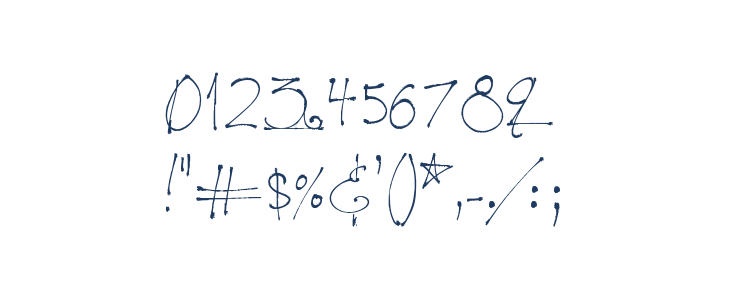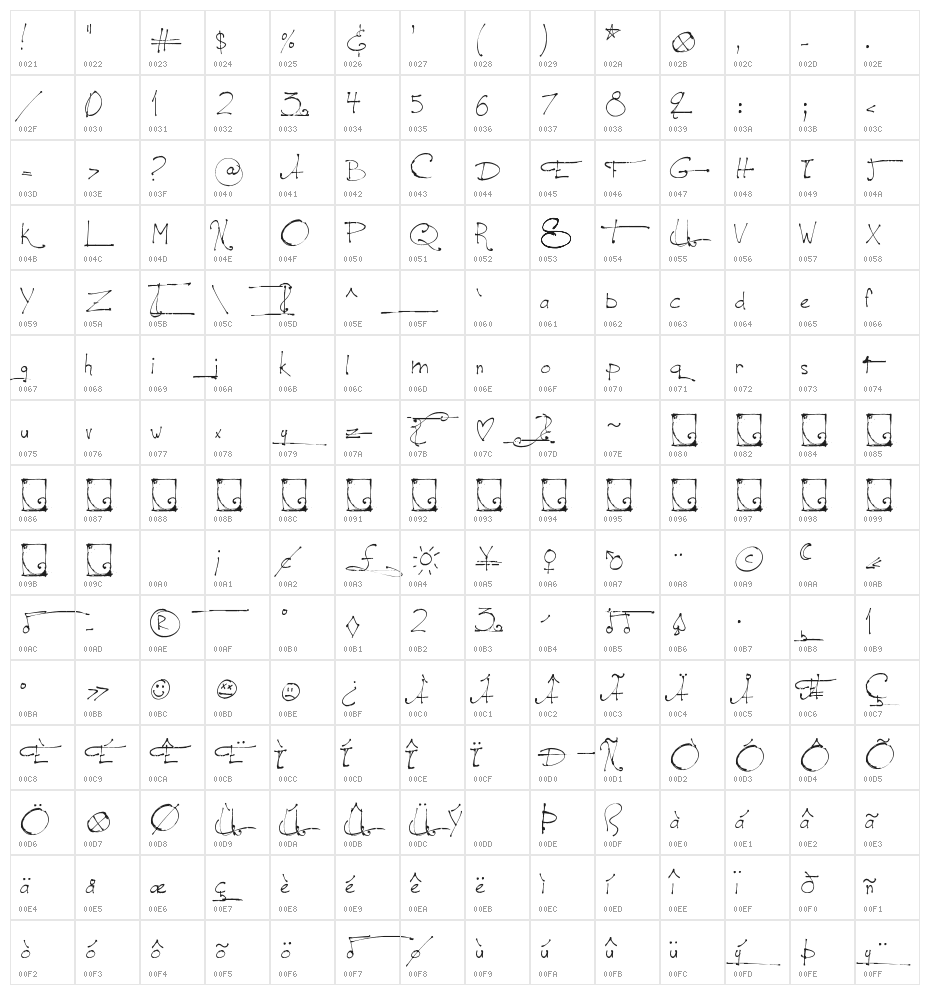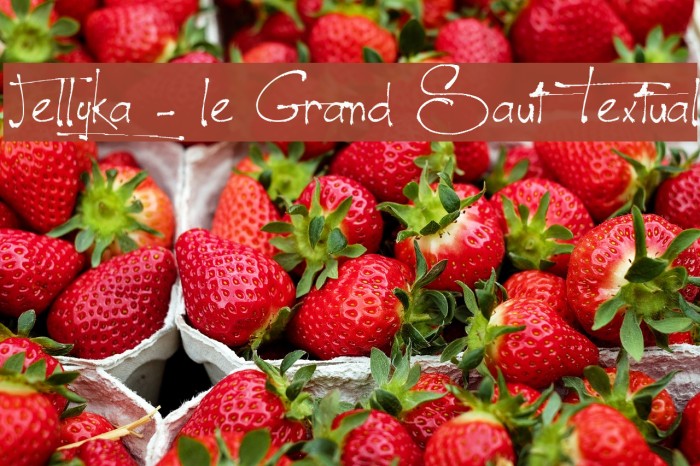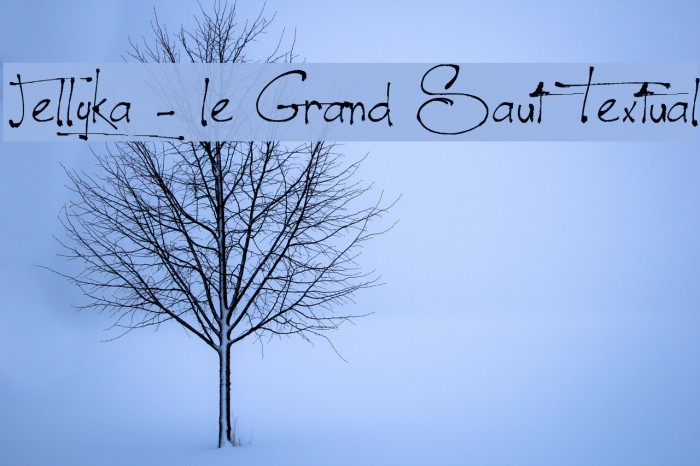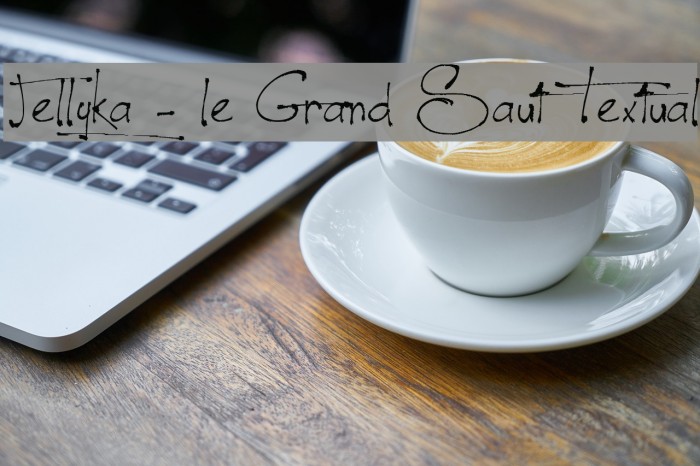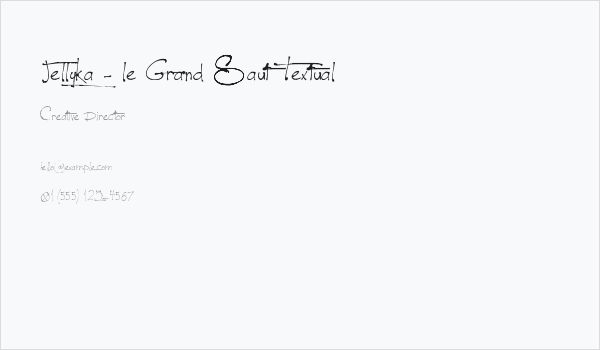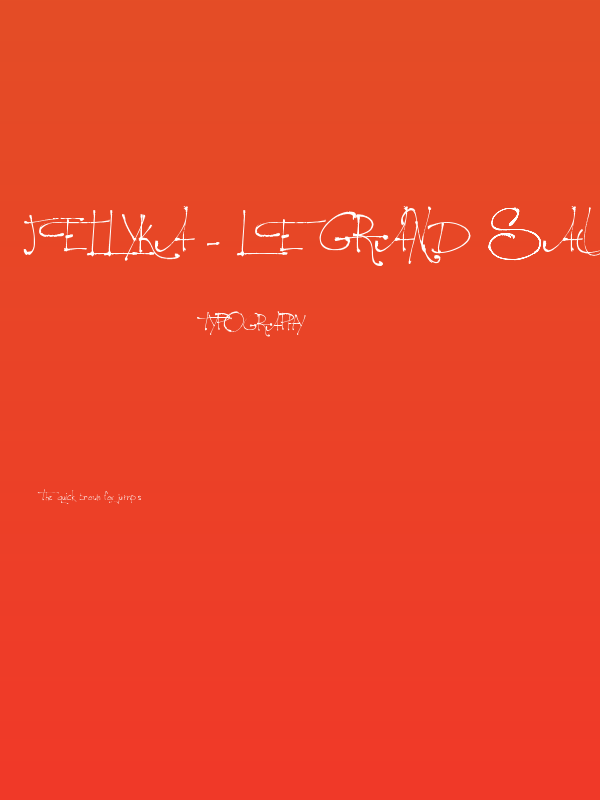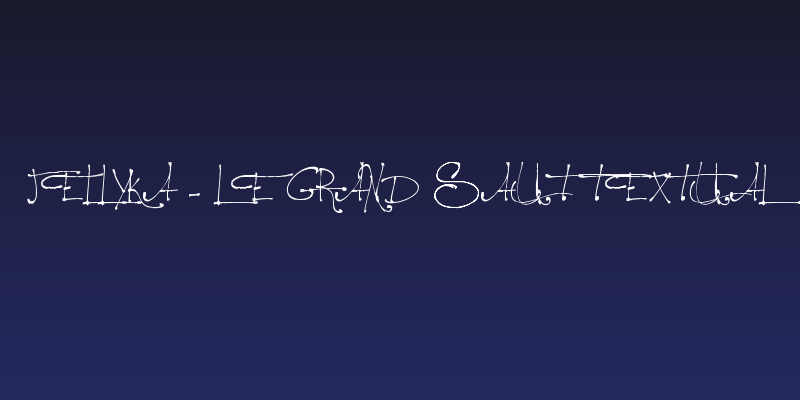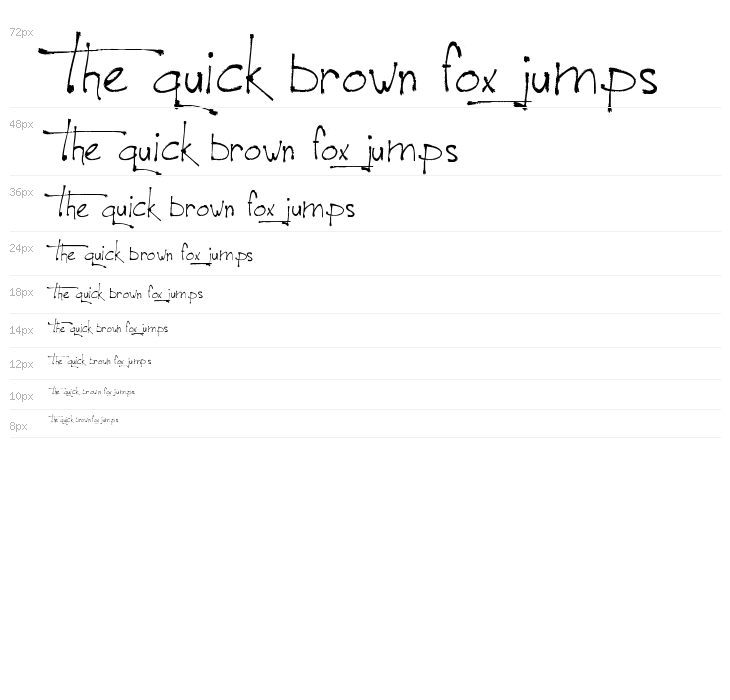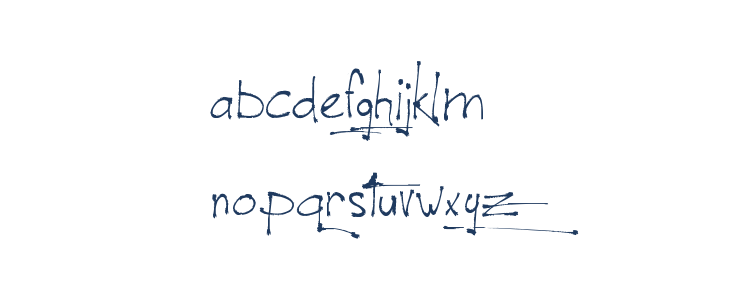
Jellyka - le Grand Saut Textual Font
Jellyka - le Grand Saut Textual Description
This font features an artistic and whimsical style, characterized by its flowing, handwritten appearance. The letters are crafted with a playful elegance, incorporating unique flourishes and varying line thicknesses that give it a dynamic and lively feel. The uppercase letters are bold and expressive, while the lowercase letters maintain a consistent, yet free-spirited form. Numbers and special characters follow the same artistic theme, adding to the font's cohesive look. This font is perfect for projects that require a touch of creativity and personality, making it ideal for invitations, greeting cards, and artistic branding.